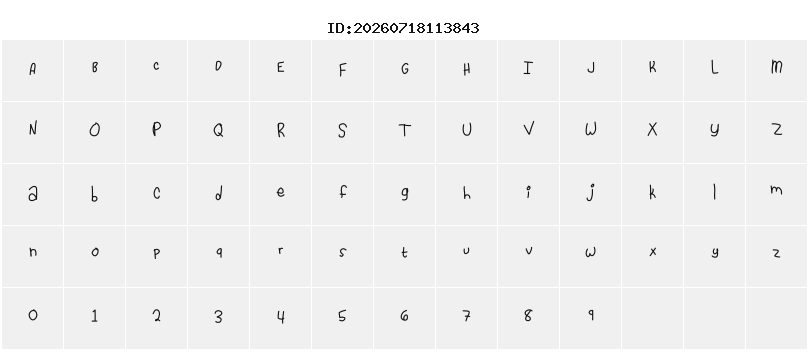
• Font Name: Cassidy Loves You
About Cassidy Loves You.ttf
Cassidy Loves You.ttf is a modern, elegant sans-serif font designed for ultimate readability and visual harmony. Perfect for branding, headlines, web design, and print materials.